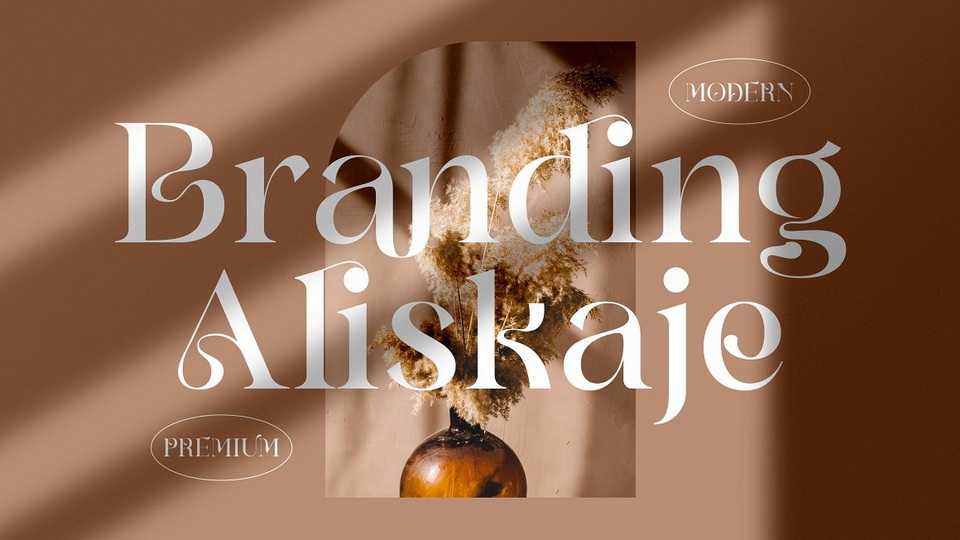
Download Branding Aliskaje font, a modern serif typeface that has own unique style and fancy look. Branding Aliskaje font is perfect for an elegant and luxury logo, book or movie title design, fashion brand, magazine, clothes, lettering, quotes, and so much more.